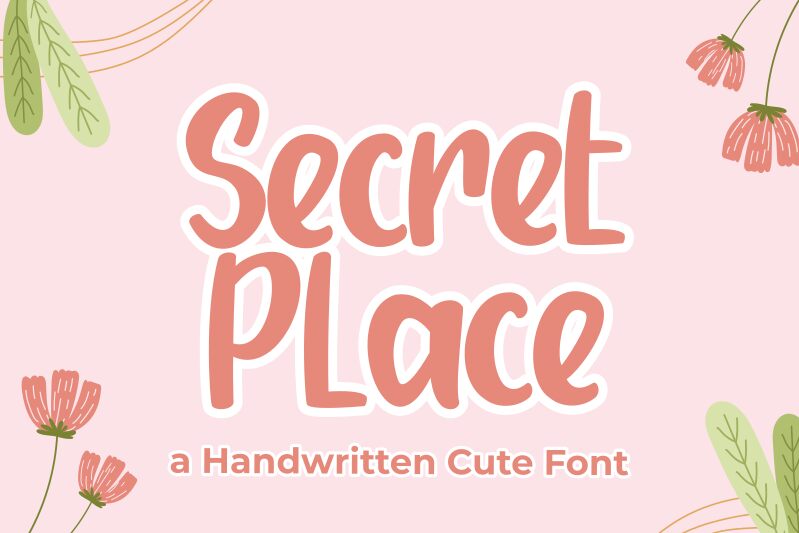
Secret Place
Secret Place font by Rvandtype is a brilliant fusion of brush style and modern handwriting. Expressive, casual, and friendly, this energetic and approachable typeface will add character to any layout. Each letter mimics fast-paced pen gestures that retain some imperfections like in real hand lettering.
Use the free handwritten font in T-shirt designs, logos, packaging designs, business cards, labels, posters advertisements, magazine covers, logotypes, website banners of beauty brands as well as personal photography projects.ignettes et plus encore.